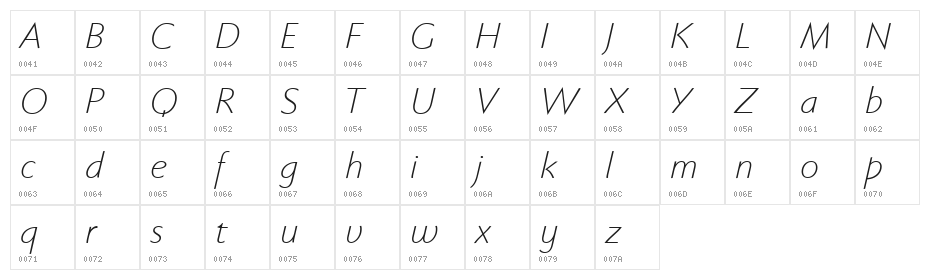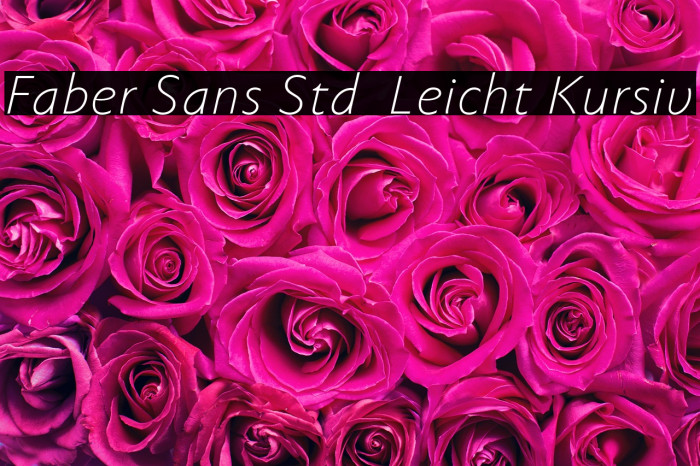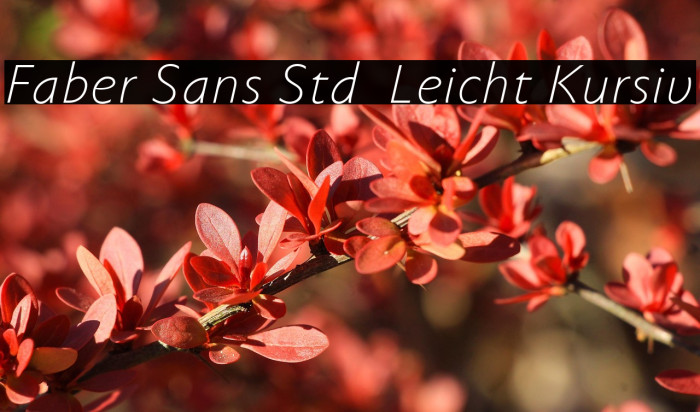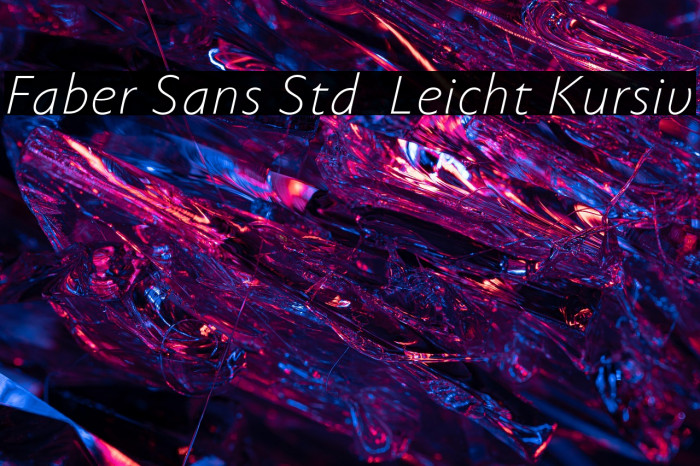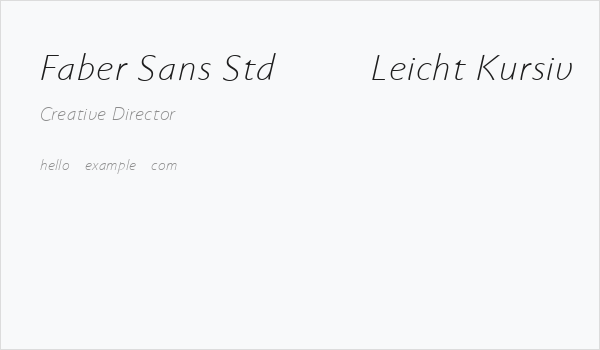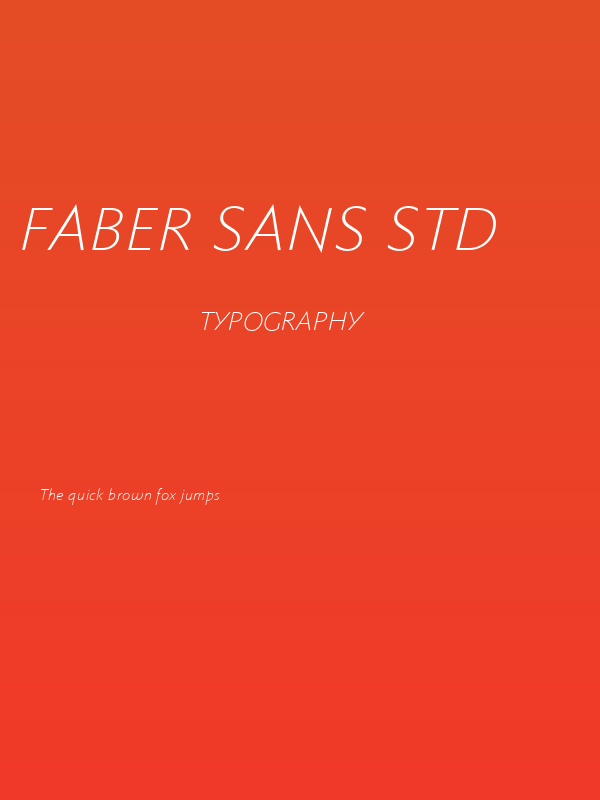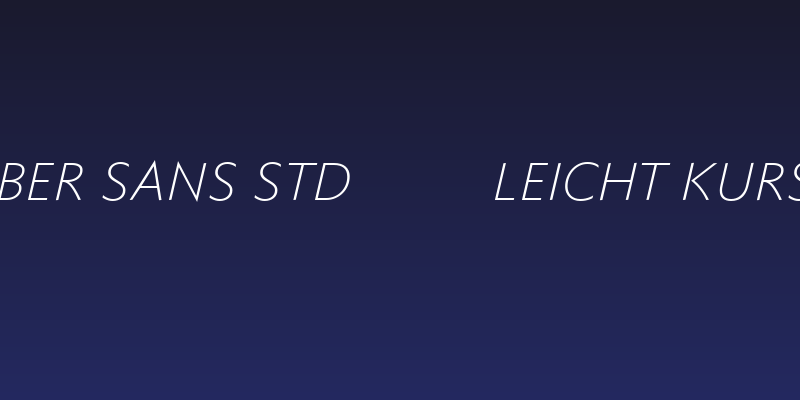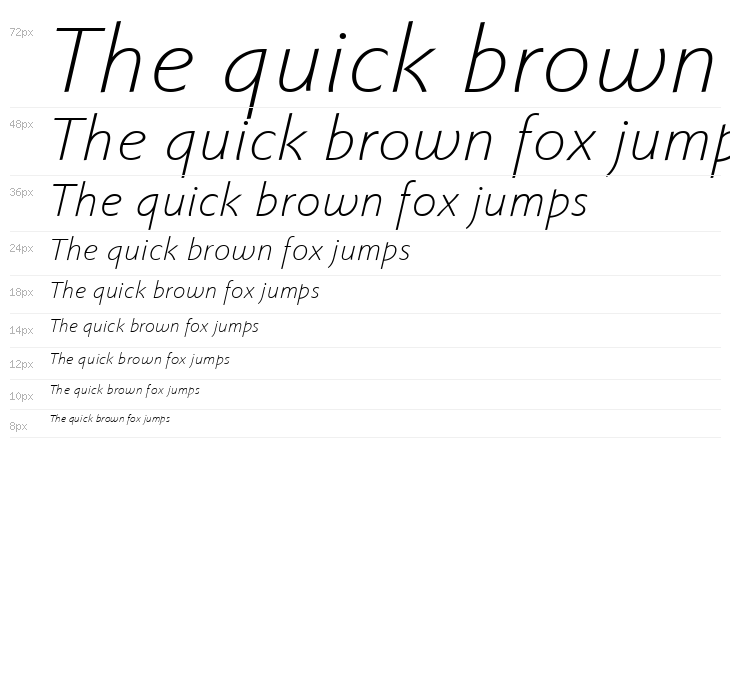
Faber Sans Std 46 Leicht Kursiv Font
Faber Sans Std 46 Leicht Kursiv Description
This font features a sleek, modern design with a clean and elegant appearance. The characters are slightly slanted, giving it a dynamic and fluid look. The strokes are thin and consistent, contributing to a light and airy feel. The sans-serif style ensures readability and simplicity, making it versatile for various applications. The spacing between characters is balanced, providing a harmonious flow across text. This font is ideal for projects that require a contemporary and sophisticated touch.
| Proposed Projects | Ideal for branding, editorial design, web design, and advertising materials. |